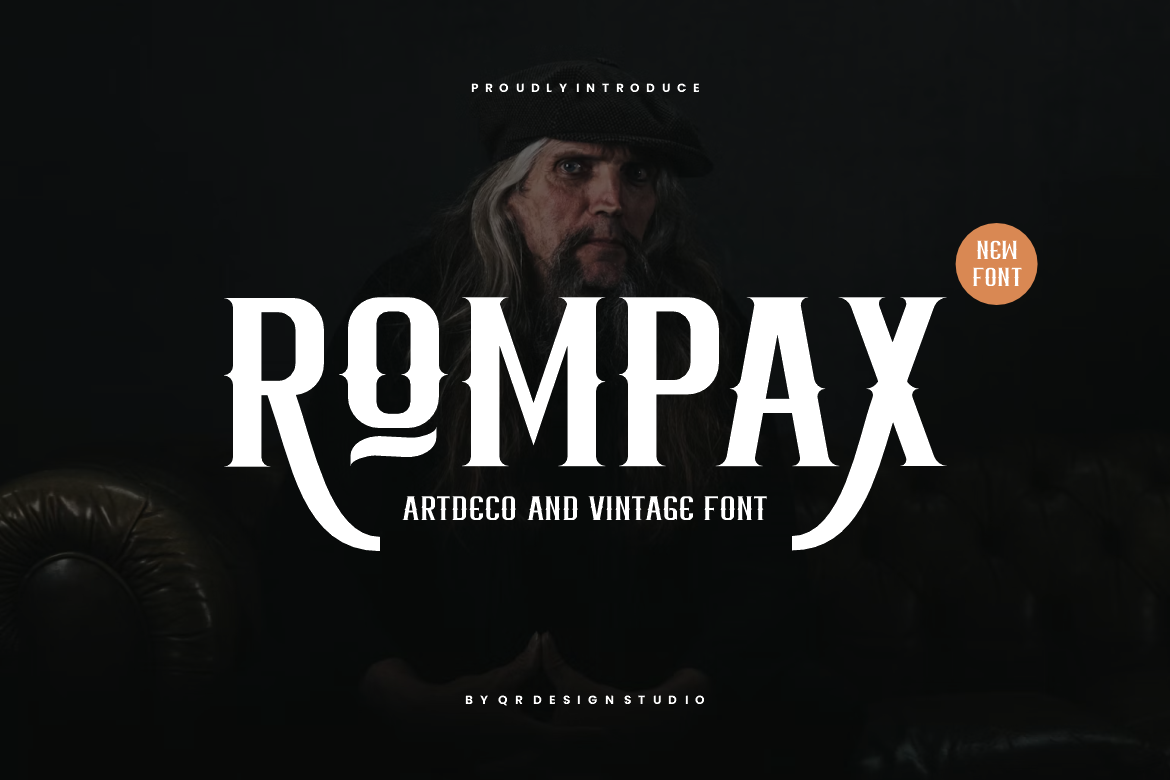
Rompax - Artdeco & Rustic Font
Rompax Font is a bold decorative authentic display font. The font is suitable for any branding project like poster, logo, sport, and many more. Outstanding in a wide range of contexts.